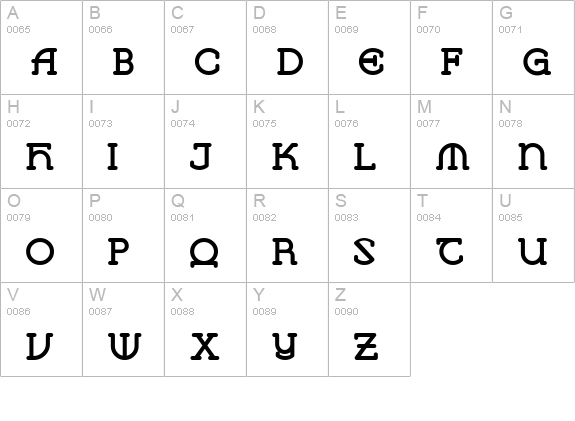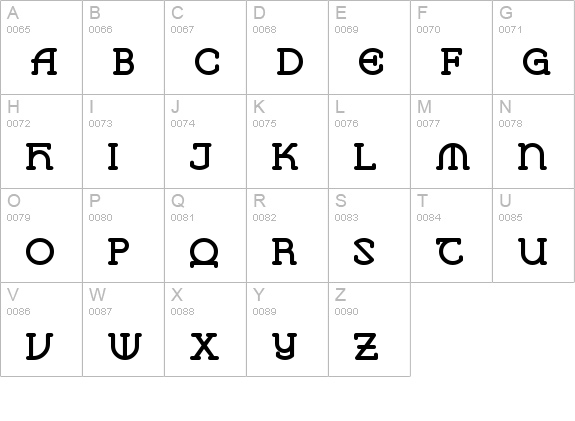
VlaanderenRound Font Details
Introducing VlaanderenRound font, a captivating typeface that effortlessly blends modern aesthetics with a touch of vintage elegance. This font is a perfect choice for designers, artists, and creators who seek to add a dash of sophistication to their projects. VlaanderenRound boasts a unique combination of rounded edges and clean lines, resulting in a harmonious balance that is pleasing to the eye. Its smooth curves and gentle curves lend a sense of warmth and friendliness, making it versatile and suitable for a wide range of design applications. Whether you're working on a branding project, designing a logo, creating eye-catching headlines, or crafting stylish invitations, VlaanderenRound will be your go-to font. Its versatility allows it to adapt effortlessly to various design styles, from minimalist and contemporary to retro and vintage-inspired. One of the most enticing aspects of VlaanderenRound is that it is available for free. Yes, you read that right – this stunning font can be yours without spending a dime. Simply head over to FontsMarket.com and download VlaanderenRound to unlock its full potential. With VlaanderenRound, you'll have access to a wide range of characters, including uppercase and lowercase letters, numerals, punctuation marks, and special symbols. Its extensive character set ensures that you can express your creativity without limitations, adding flair and personality to your designs. Crafted with meticulous attention to detail, VlaanderenRound is designed to ensure legibility across various sizes and mediums. Whether in print or on digital platforms, this font guarantees clear and crisp typography, allowing your message to shine through. So why wait? Embrace the beauty of VlaanderenRound and elevate your design projects to new heights. Download this exceptional font today, freely available at FontsMarket.com, and unleash your creative spirit with its timeless charm and versatility.